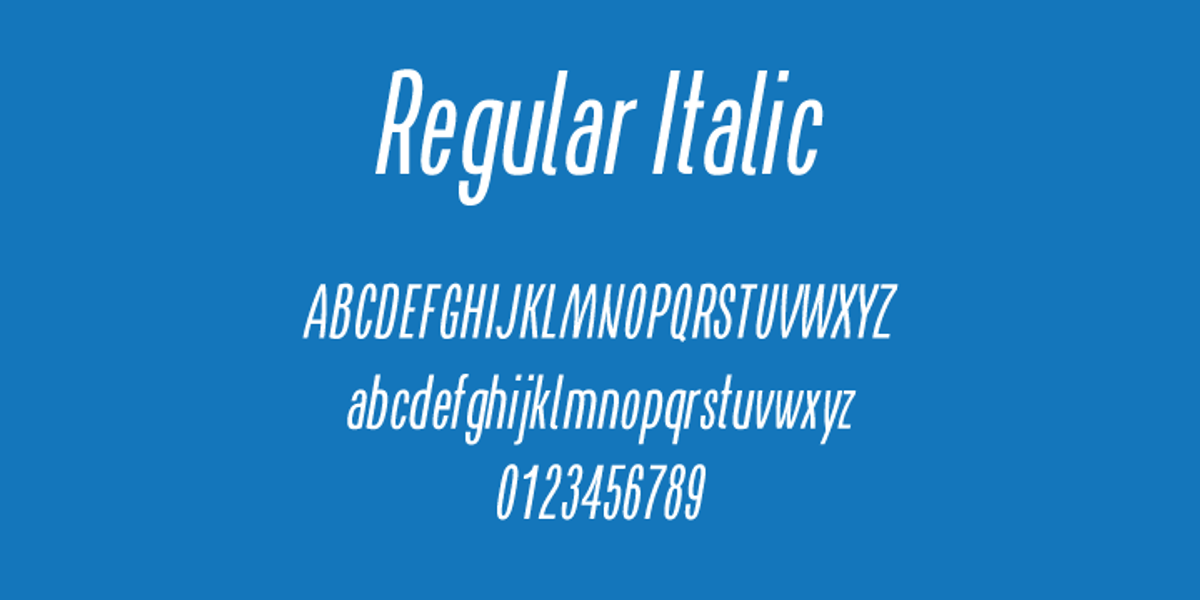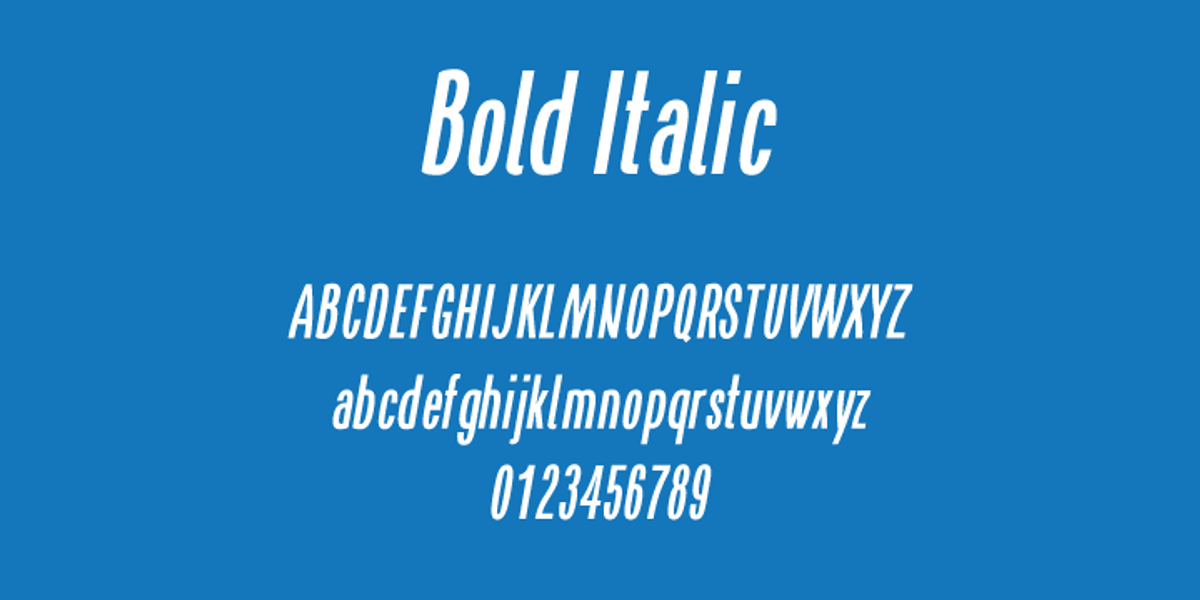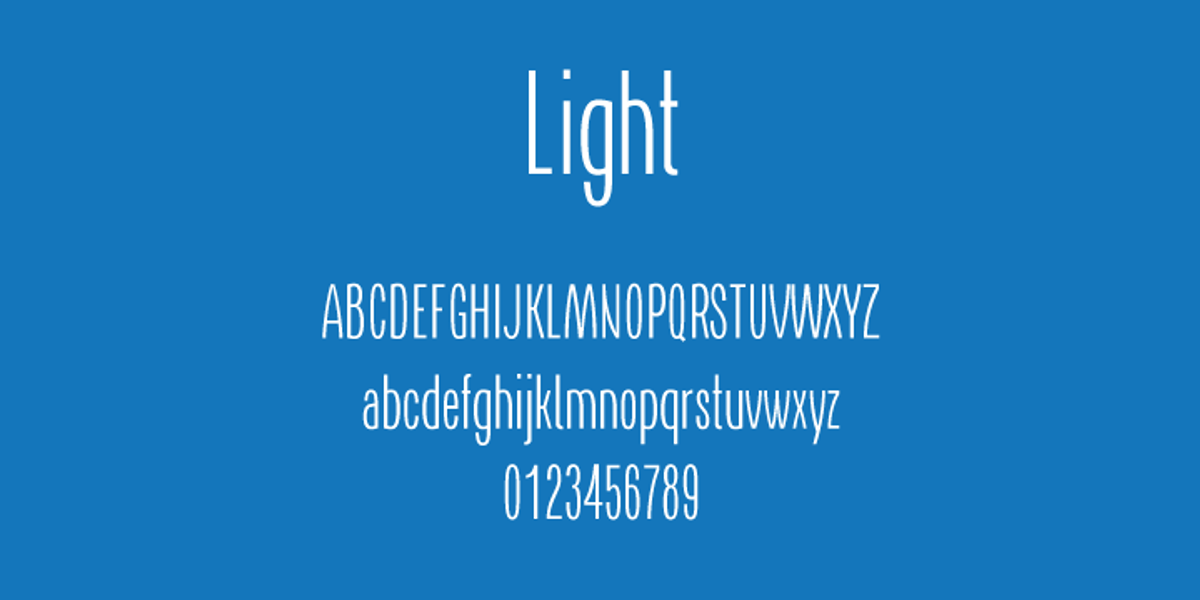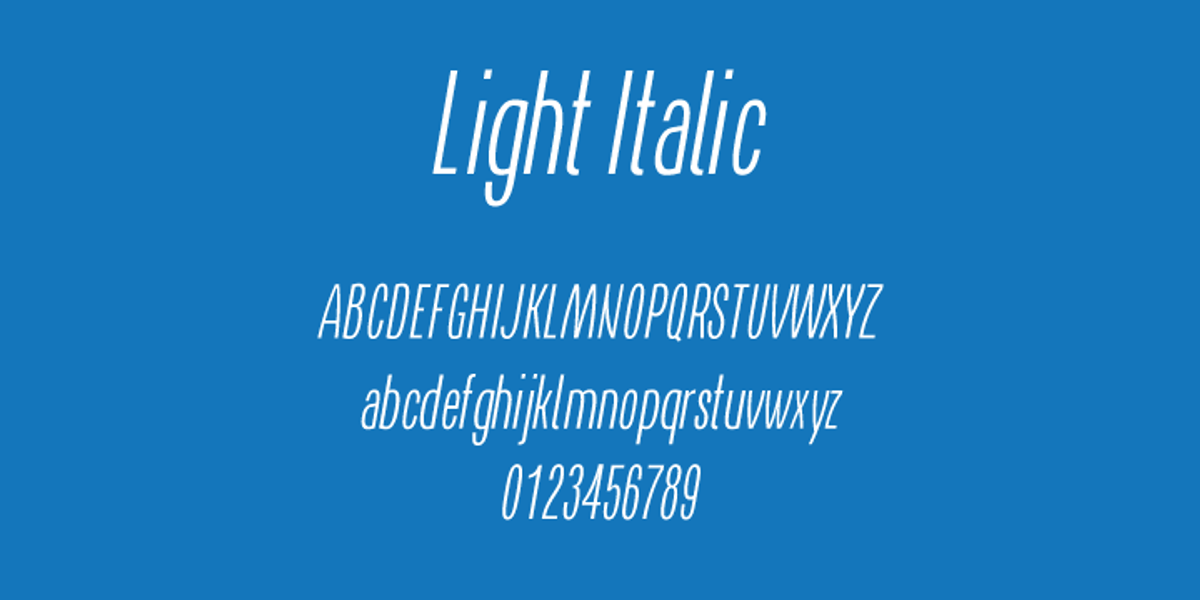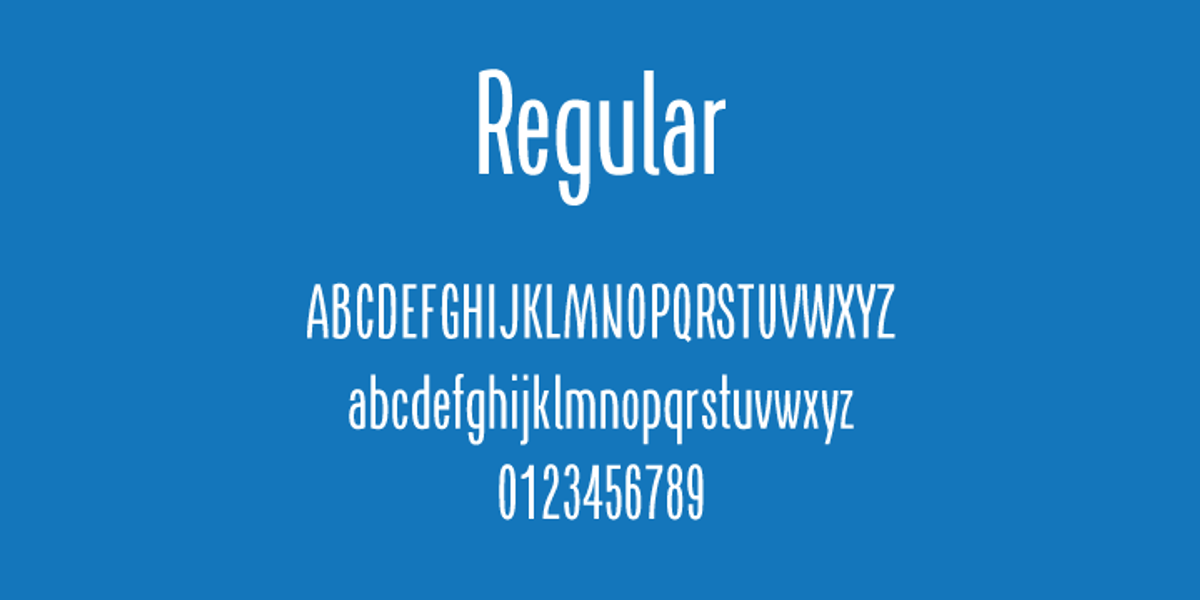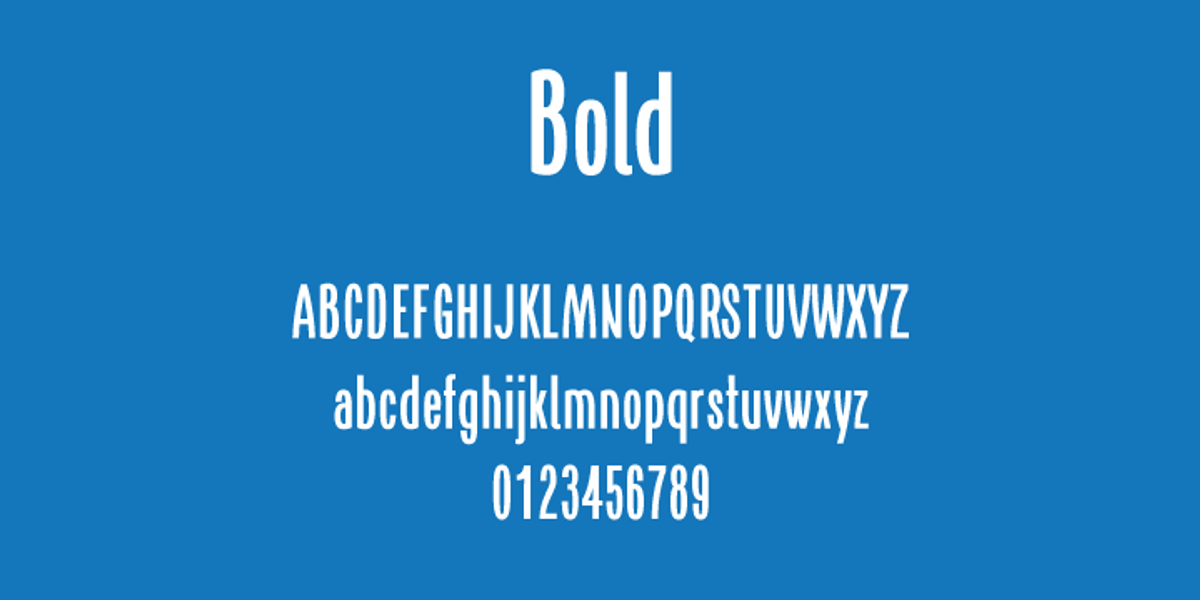
AS Naya
AS Naya is a three-font family designed by Aleksandr Sukiasov in 2012. It's characterized as elegant and well-suited for both headlines and body text, making it versatile for various applications like newspapers, magazines, books, and corporate branding. The fonts are recommended for use at large sizes for headlines and also function well for smaller text blocks due to its condensed nature.